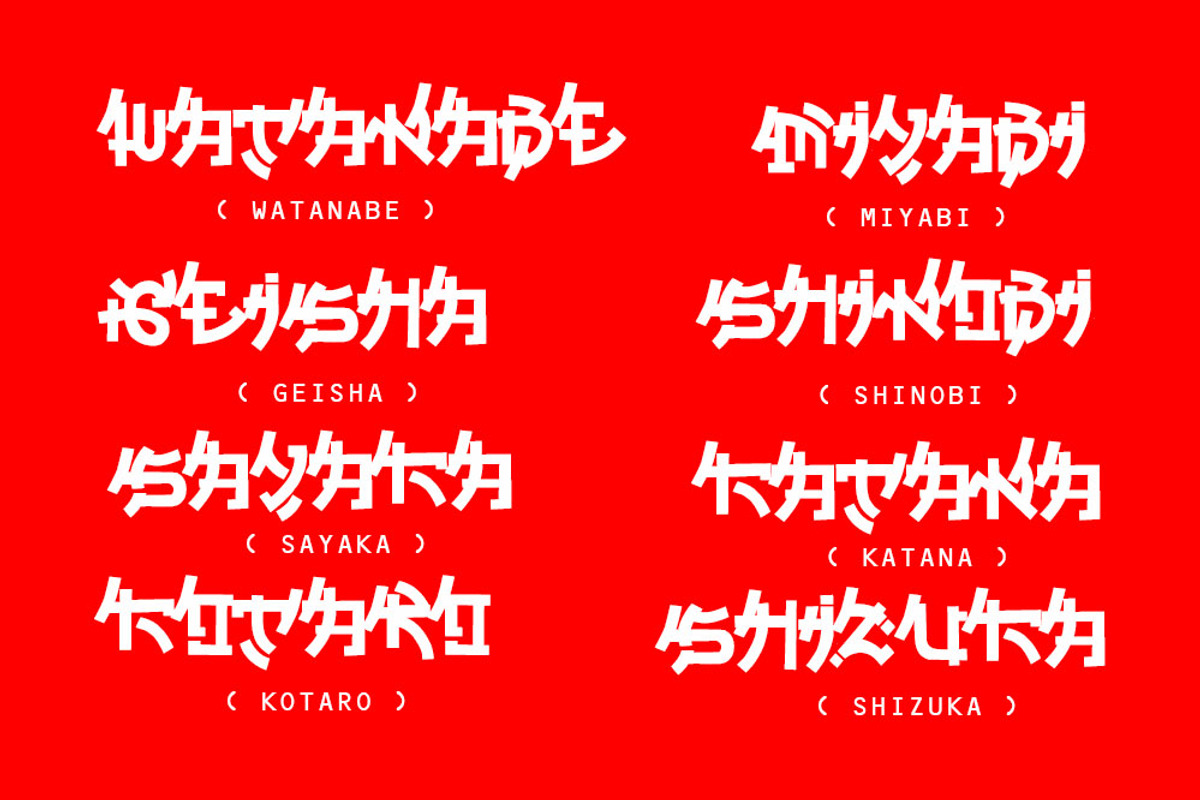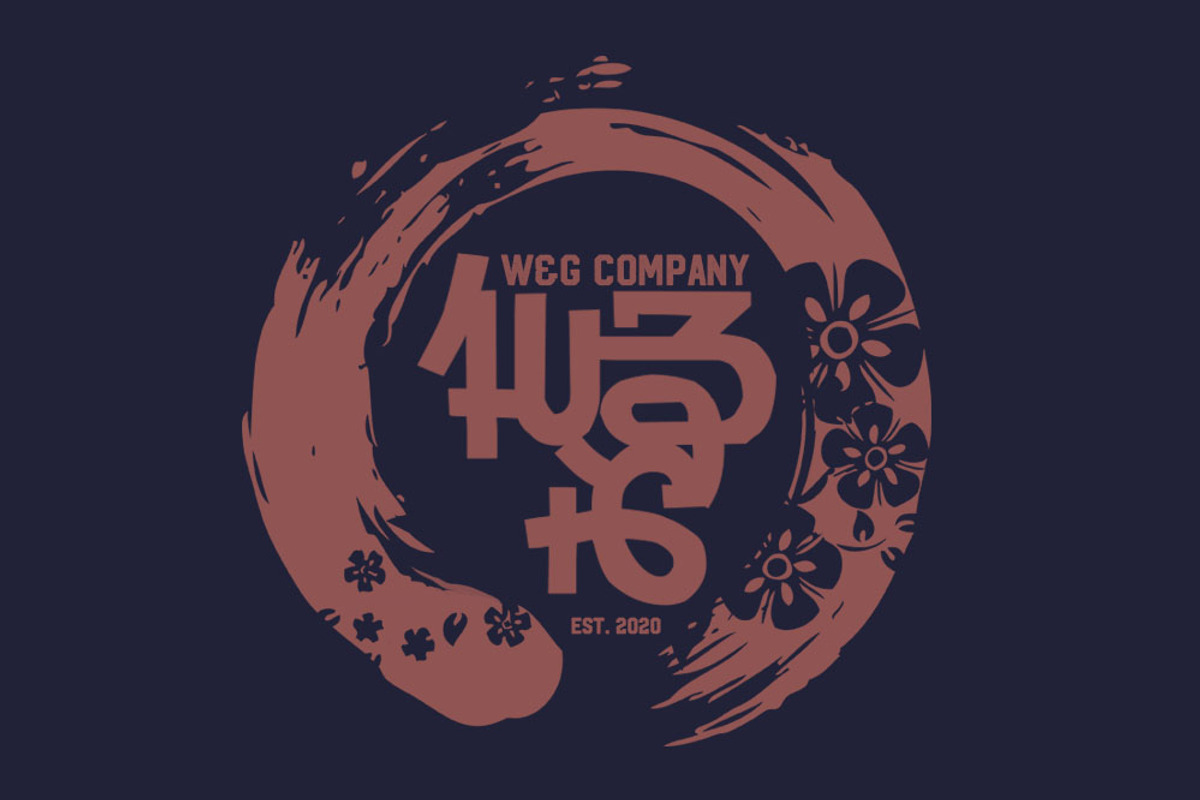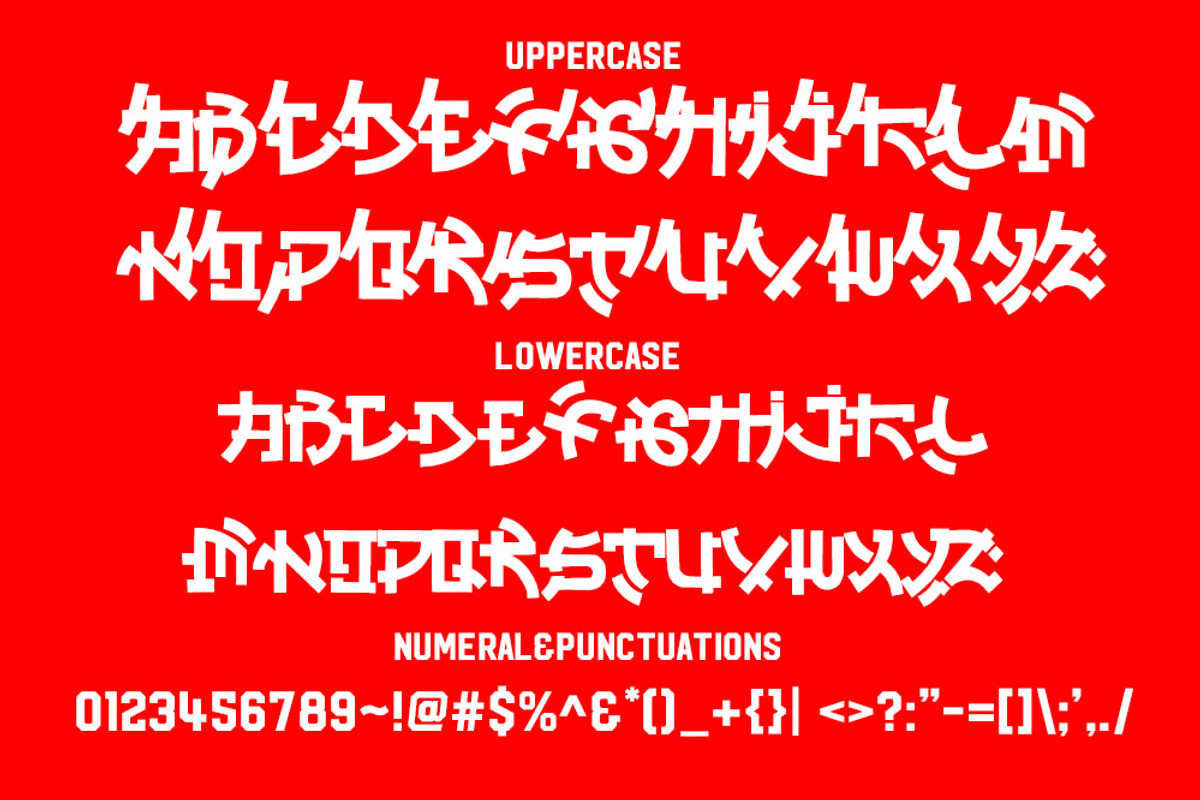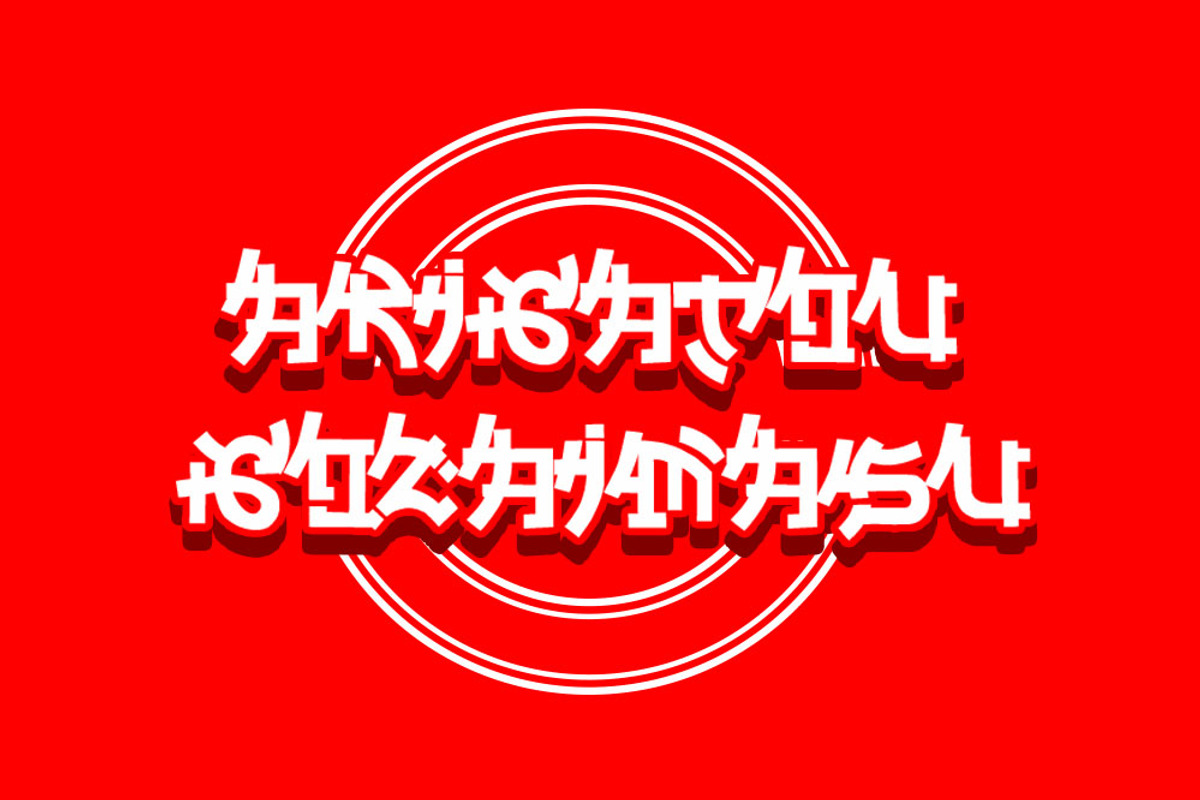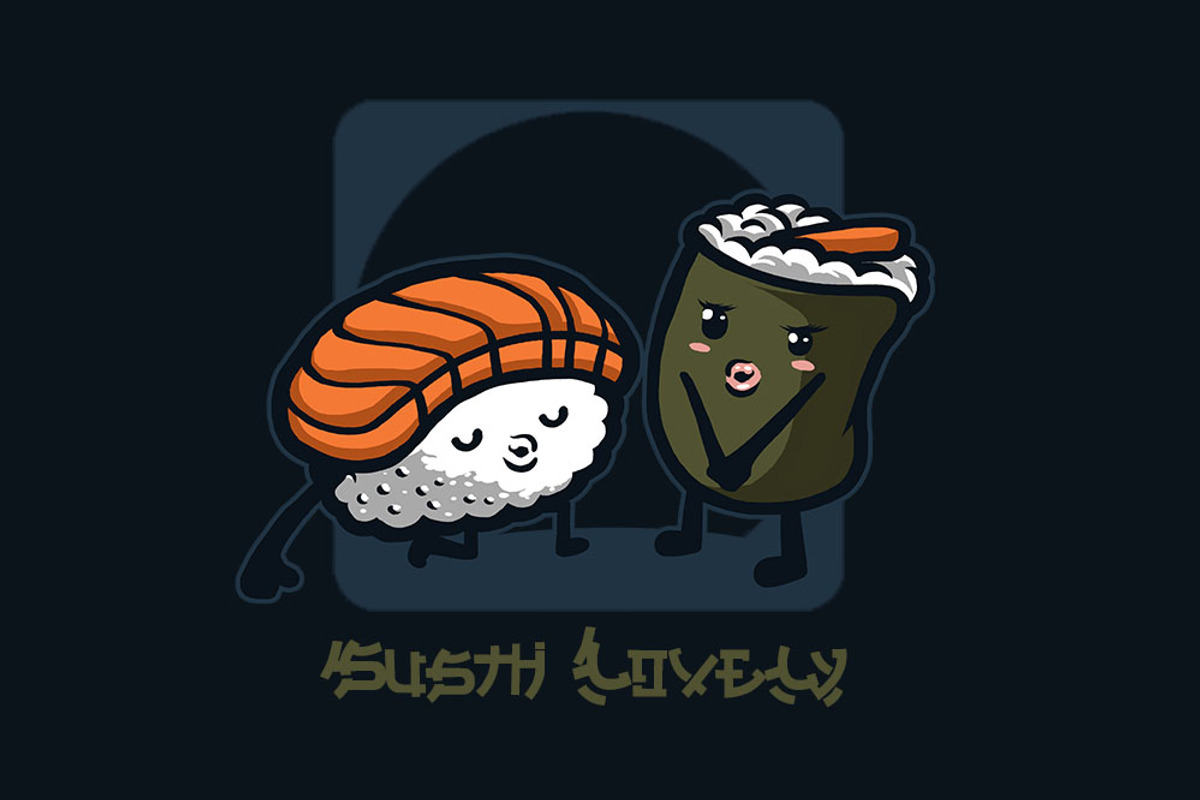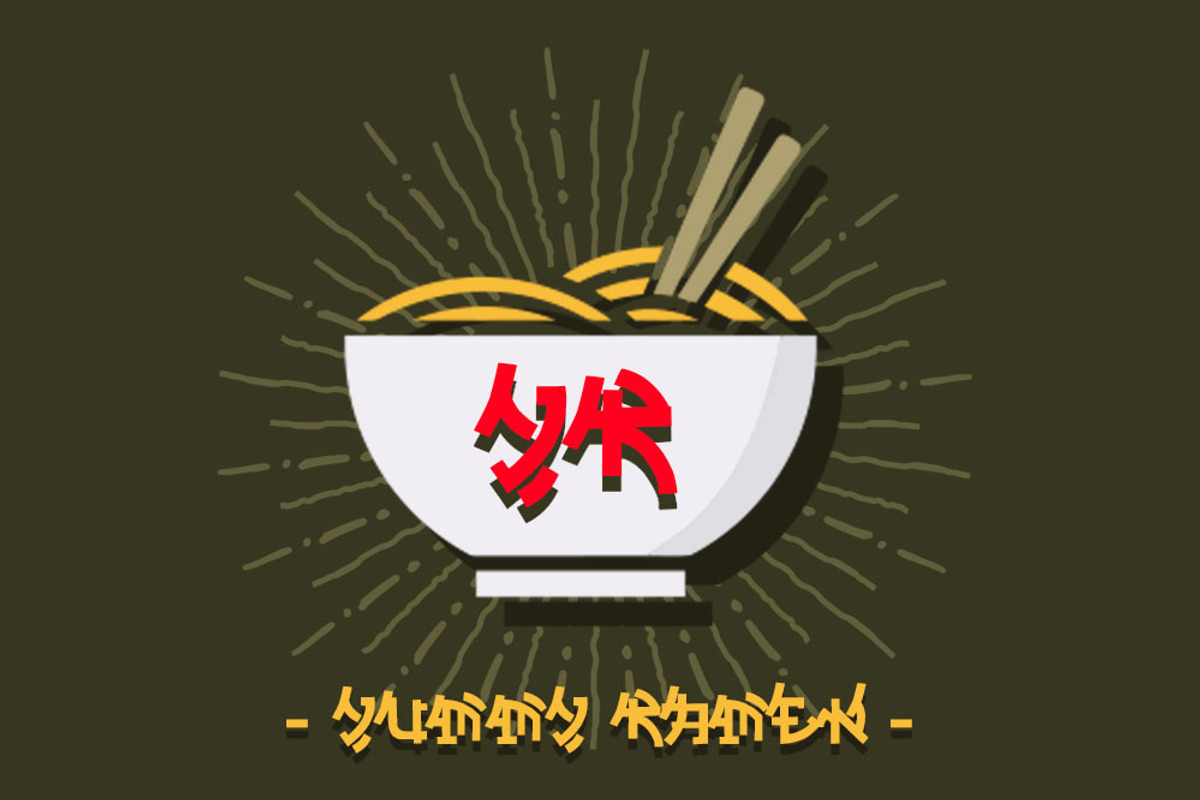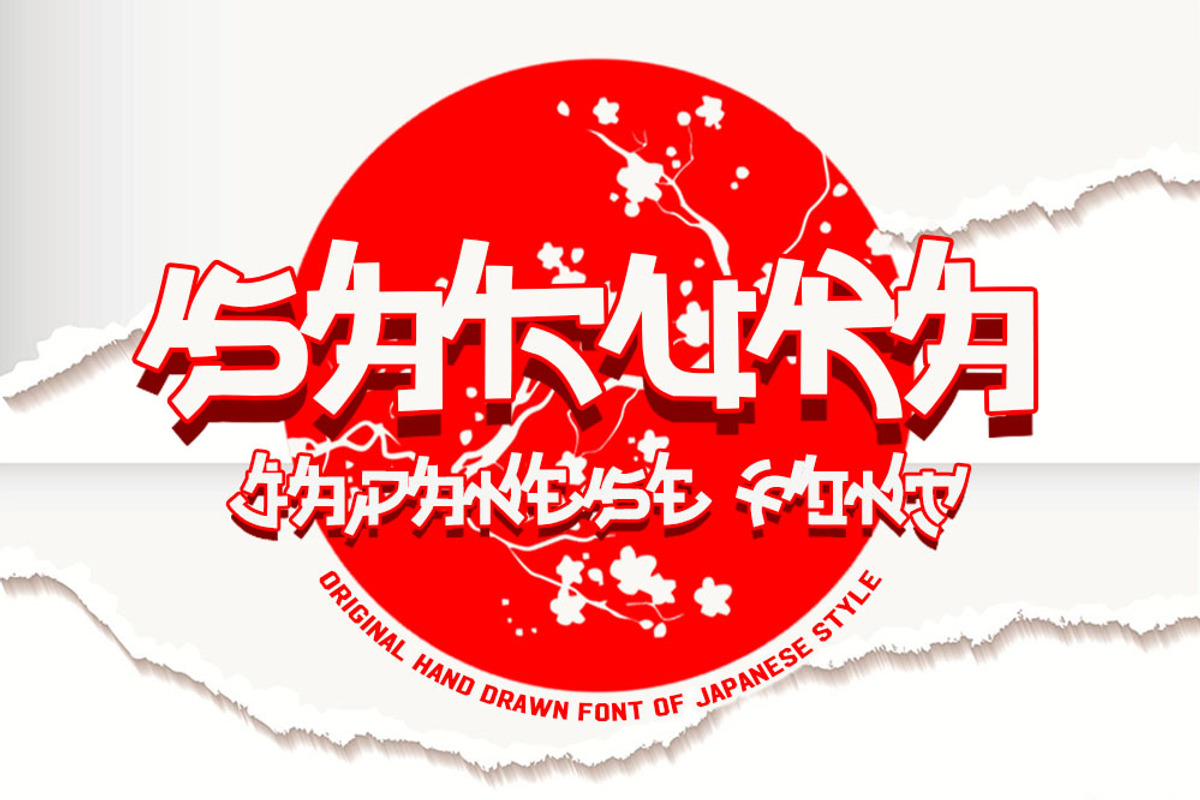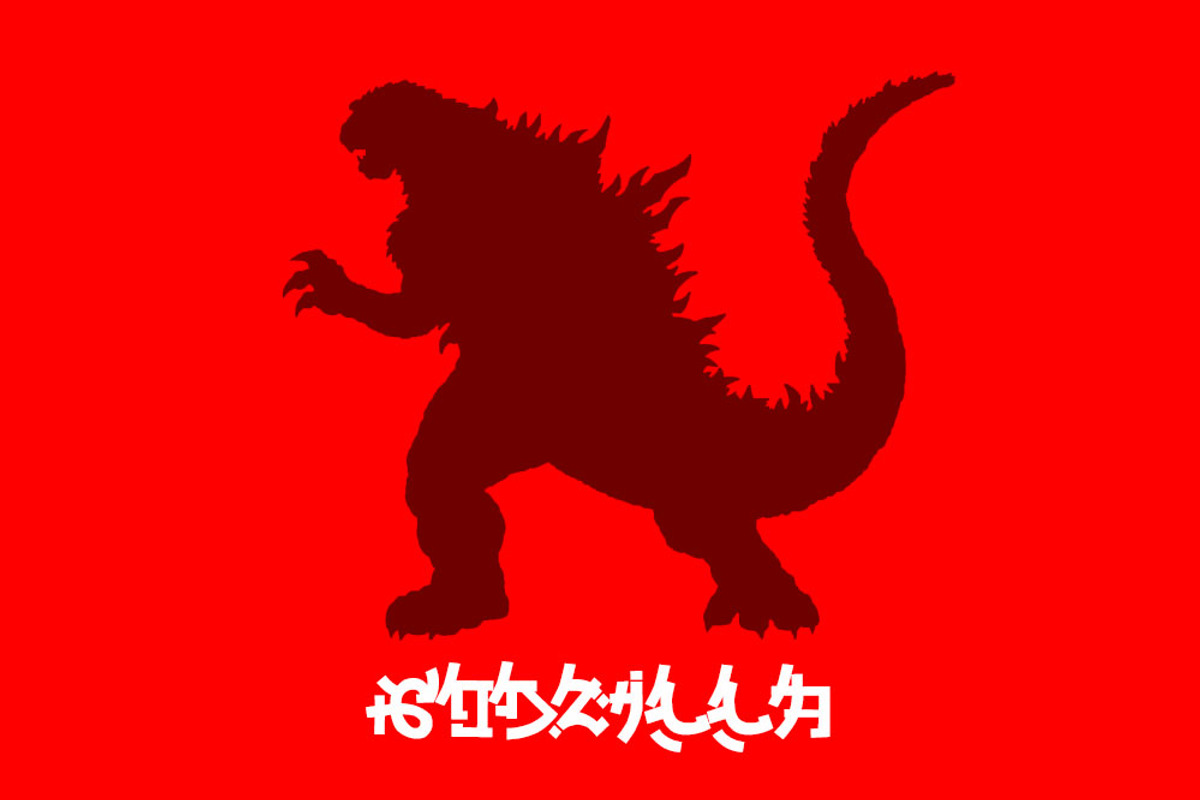
Sakura Japanese style font
introducing Japanese-style fonts and the only fonts with shapes and styles that exactly resemble the original Japanese characters. but this font is easy to read and can be applied to all media and all can use this font without exception. can be used for clothing, apparel, skate boards, logos and others. and this font has features:
- uppercase
- lowercase
- numerals & punctuations enjoy it. thanks.